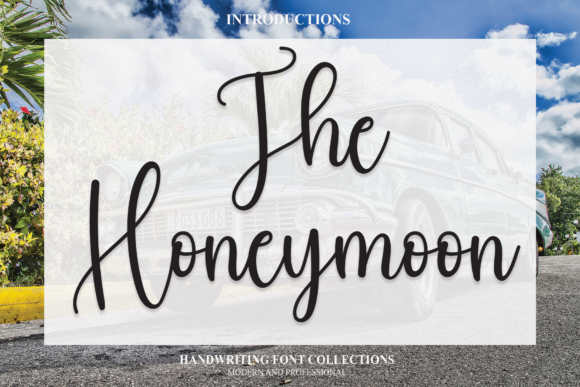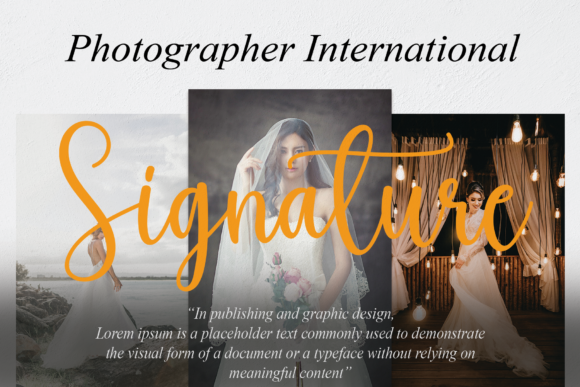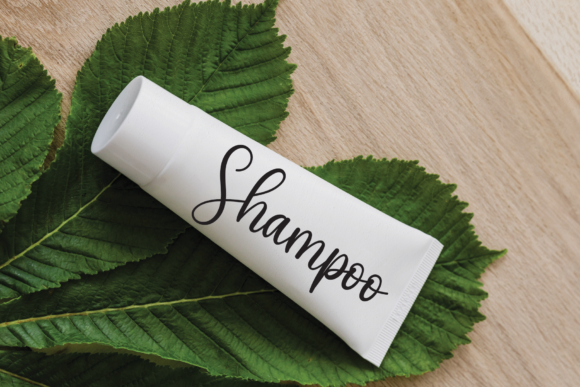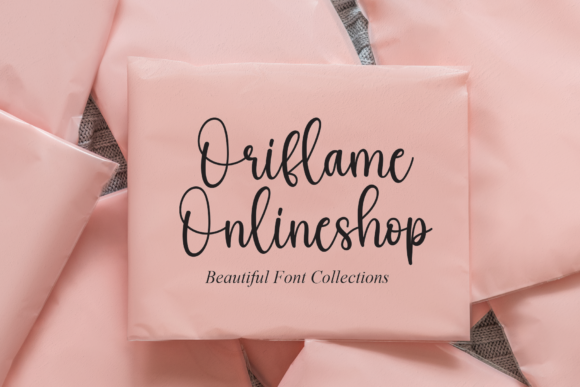
The Honeymoon Font
About The Honeymoon Font
The Honeymoon is a delicate and stylish script font, featuring a lovely flow. Whether you’re looking for fonts for Instagram or calligraphy scripts for DIY projects, this font will turn any creative idea into a true piece of art!